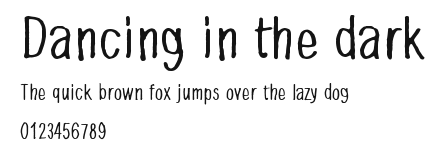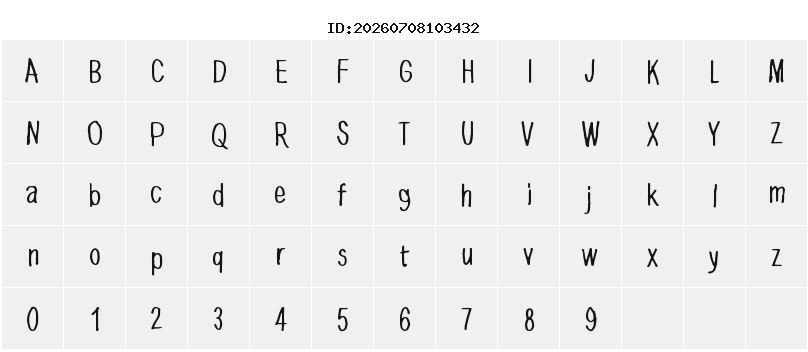
• Font Name: Dancing in the dark
• Full Font Name: Dancing in the dark
• Version: Version 1.00 April 16, 2015, initial release
• Designer: junkohanhero
About Dancing in the dark.ttf
Dancing in the dark.ttf is a modern, elegant sans-serif font designed for ultimate readability and visual harmony. Perfect for branding, headlines, web design, and print materials.